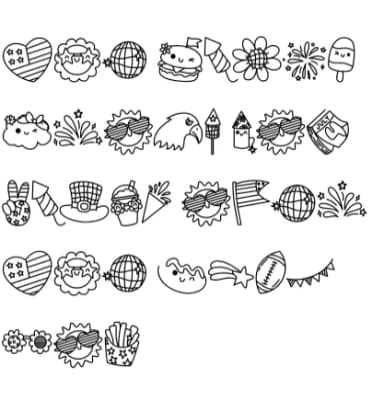
Happy 4th of July by Chonada is a dingbat font that replaces your characters with patriotic symbols: stars, fireworks, flags, and holiday icons. Rather than typing regular letters, you're selecting from a curated collection of themed motifs designed to add visual richness to your work without requiring separate graphics files or clip art.
This font excels for Fourth of July greeting cards where you want immediate visual impact, patriotic banner designs that blend text with decorative ornaments, and holiday invitation suites that pull together multiple celebratory symbols. Crafters making DIY stickers, scrapbooking layouts, or social media graphics find this icon set invaluable for assembling complete designs within a single typeface. Having all your patriotic elements in one font eliminates the need to hunt through clip art libraries or cobble together custom icons.
When you combine it with a complementary typeface for headlines or body text, the dingbat layers become supporting visual elements rather than the main event. As a symbol set, your design options depend on what Chonada included in the collection. That specificity is actually part of the appeal, since you get exactly what you need without unnecessary bloat. Grab Happy 4th of July from Creative Fabrica and start layering these patriotic symbols into your holiday designs.
Happy 4th of July Font is a versatile dingbats font that works for both headings and body text. Pair it with a contrasting sans-serif or serif font to add visual interest and a clear distinction between titles and body copy.